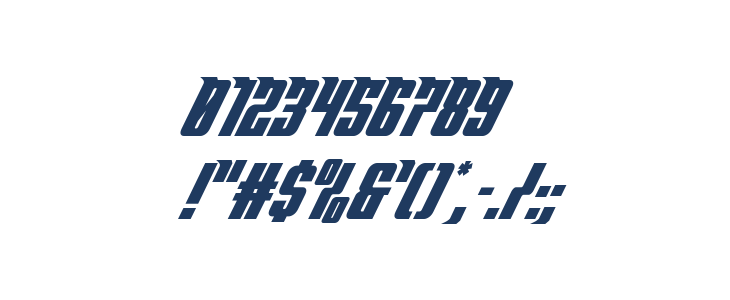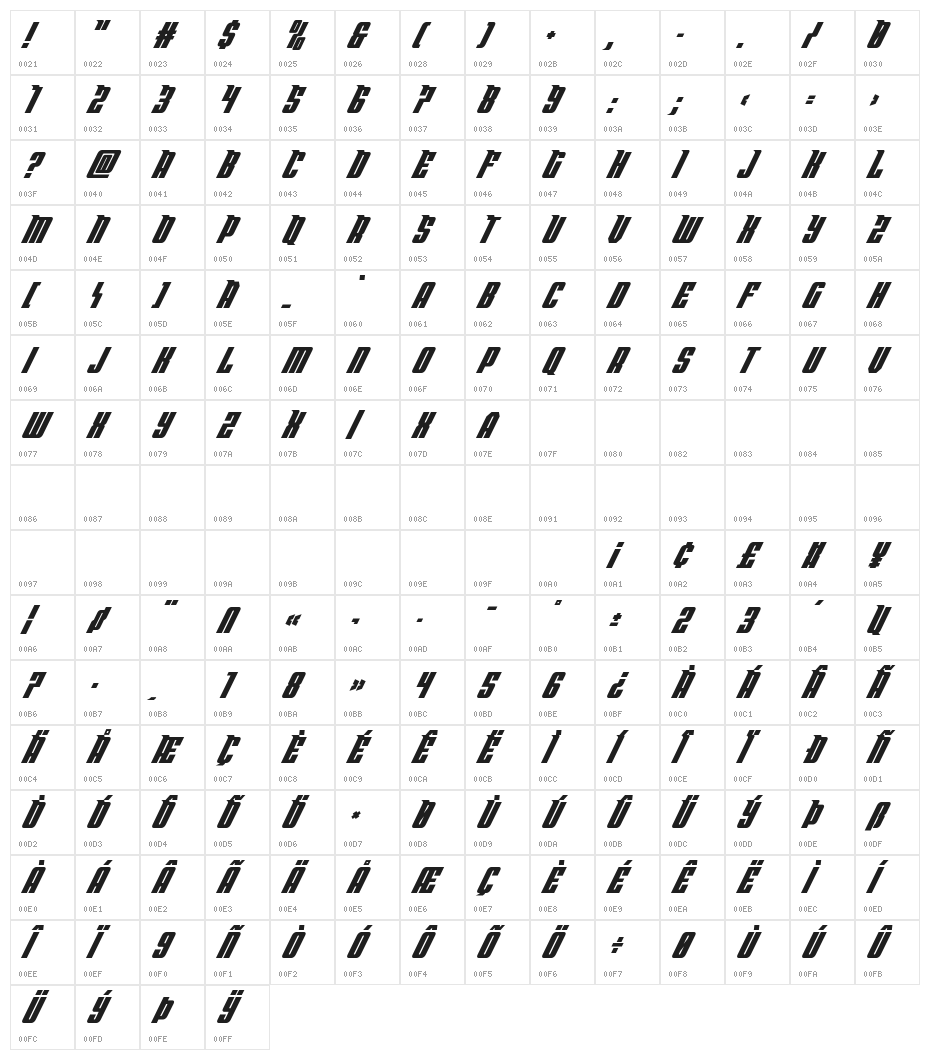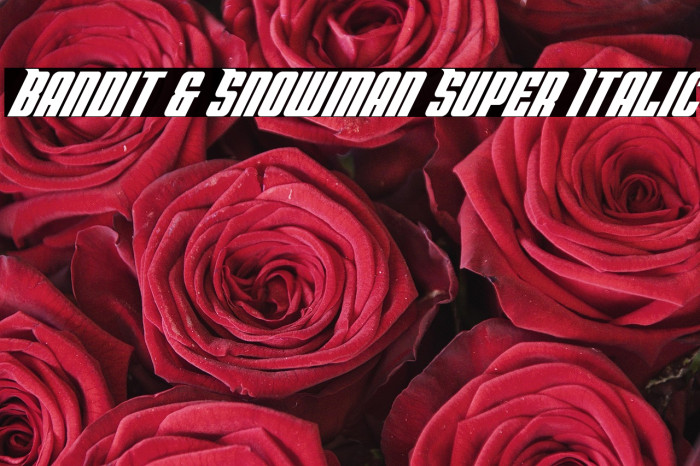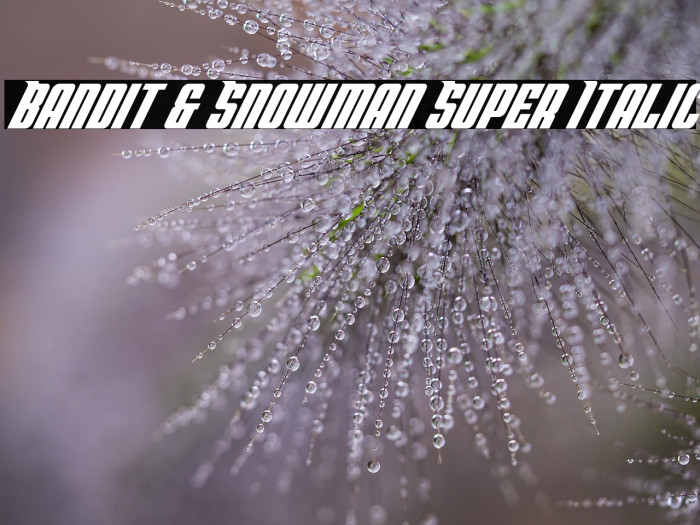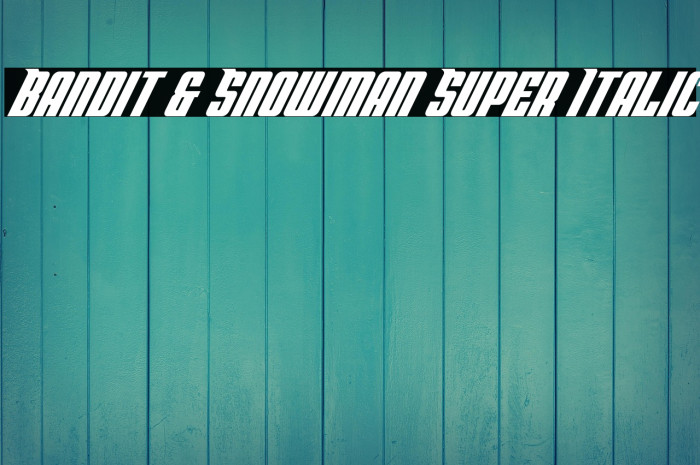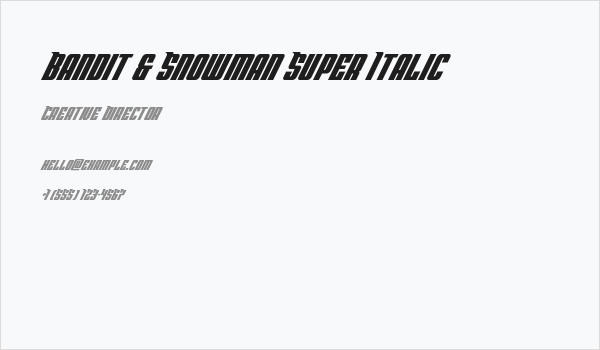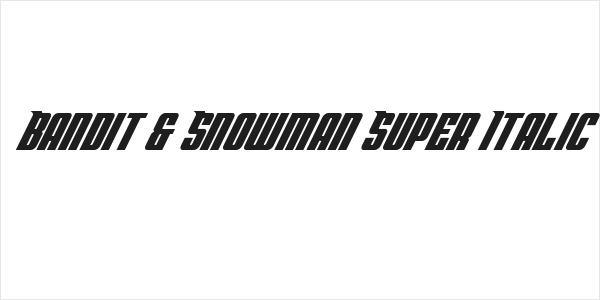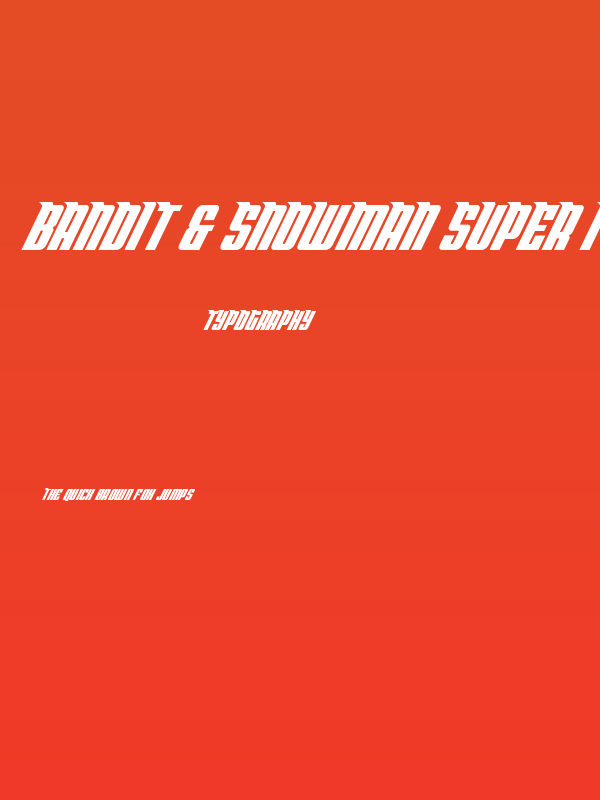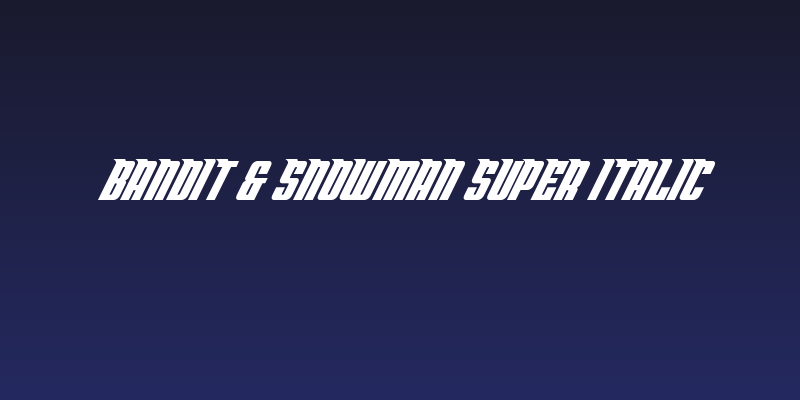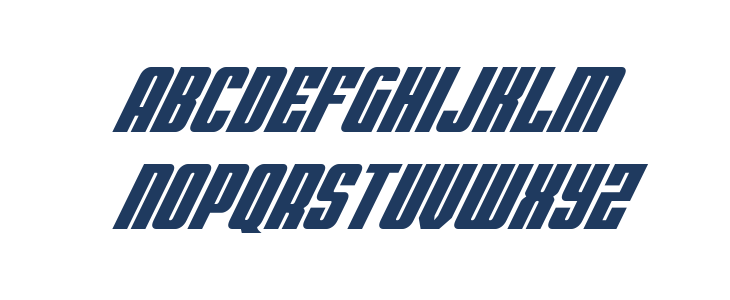
Bandit & Snowman Super Italic Font
Bandit & Snowman Super Italic Description
This font features a bold, italicized style with a strong, dynamic presence. The characters are sharply angled, giving a sense of motion and energy. The strokes are thick and consistent, providing a robust and impactful appearance. The uppercase and lowercase letters maintain a uniform slant, enhancing the italic effect. Numbers and special characters follow the same stylistic approach, ensuring a cohesive look across all elements. The overall design is modern and assertive, making it suitable for attention-grabbing headlines or branding that requires a bold statement.